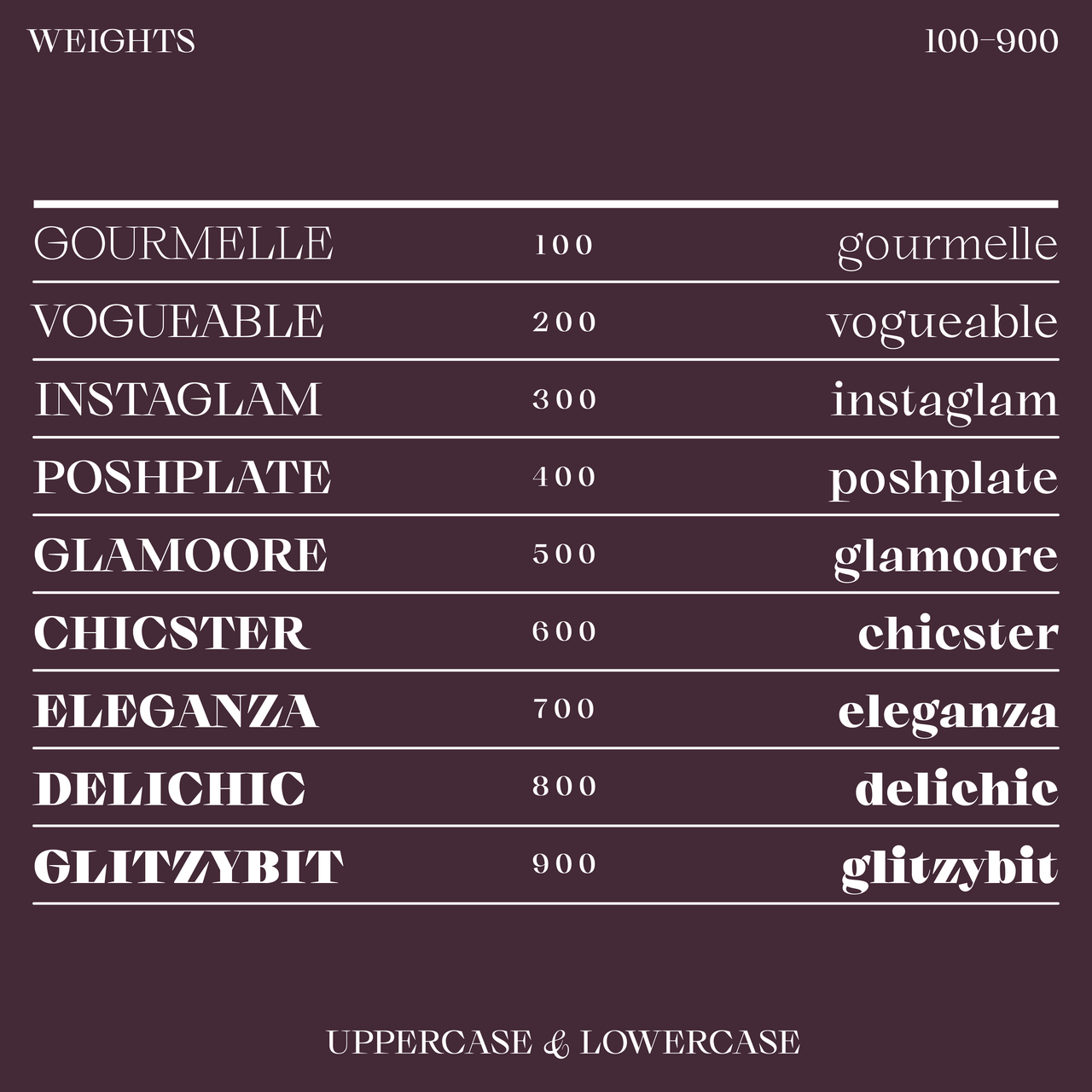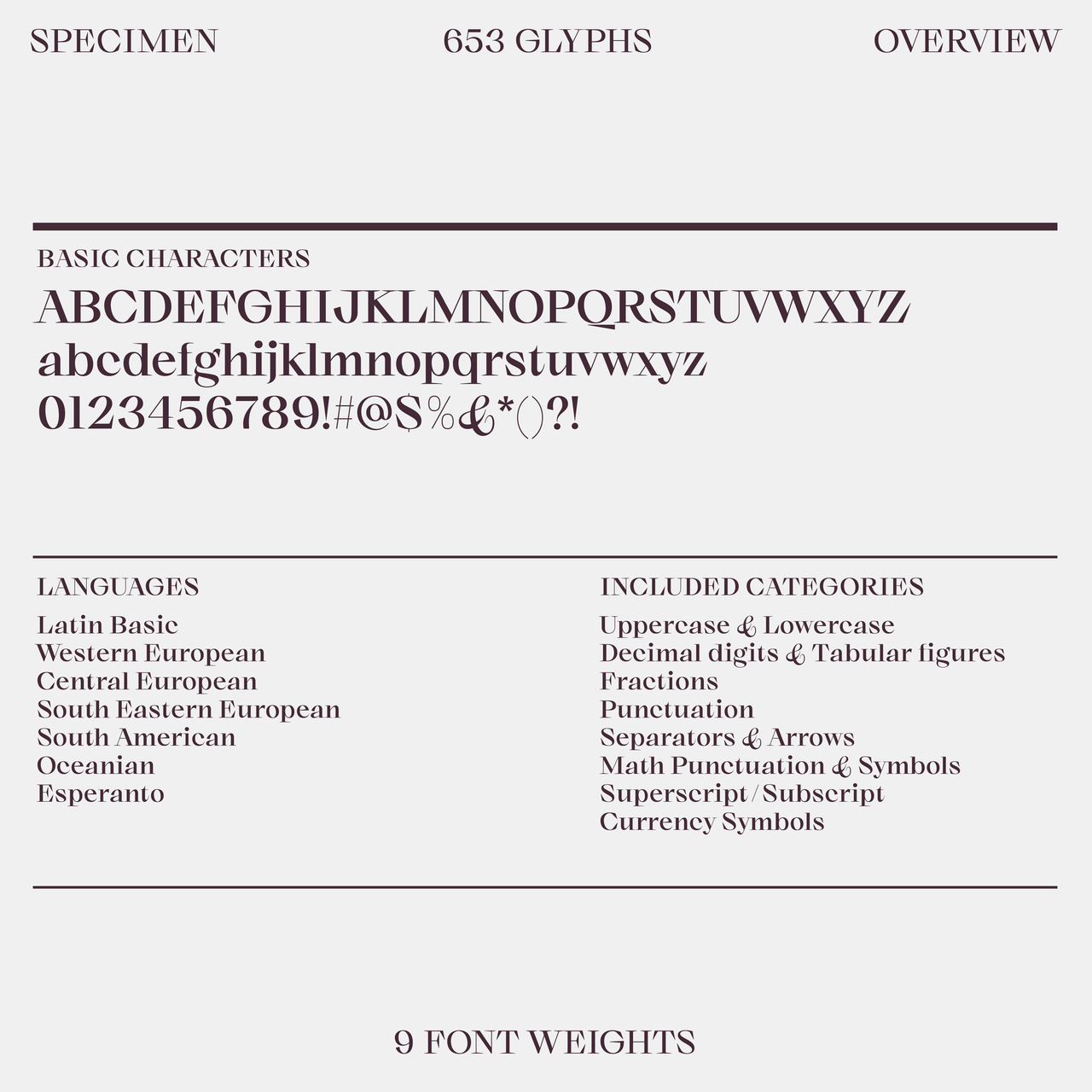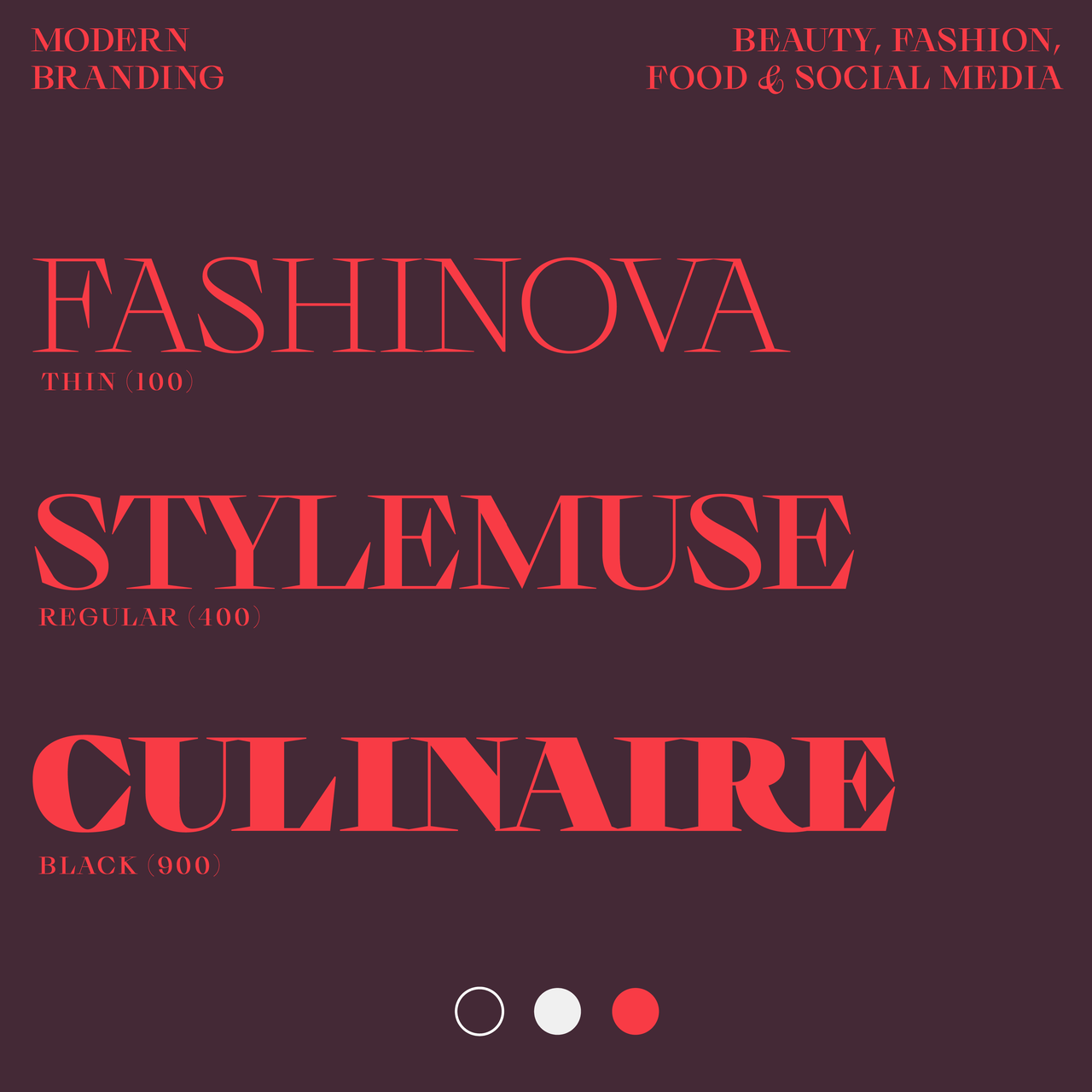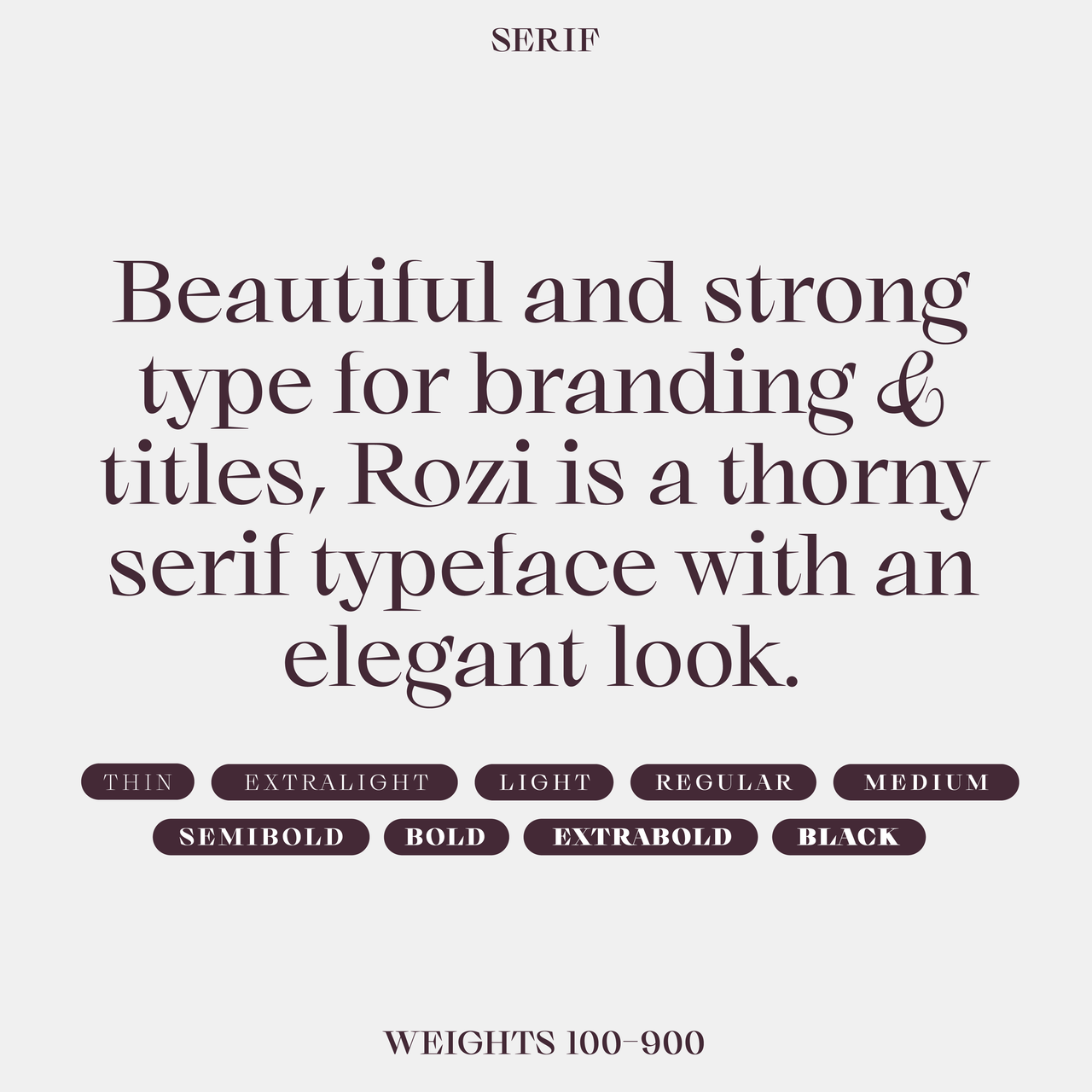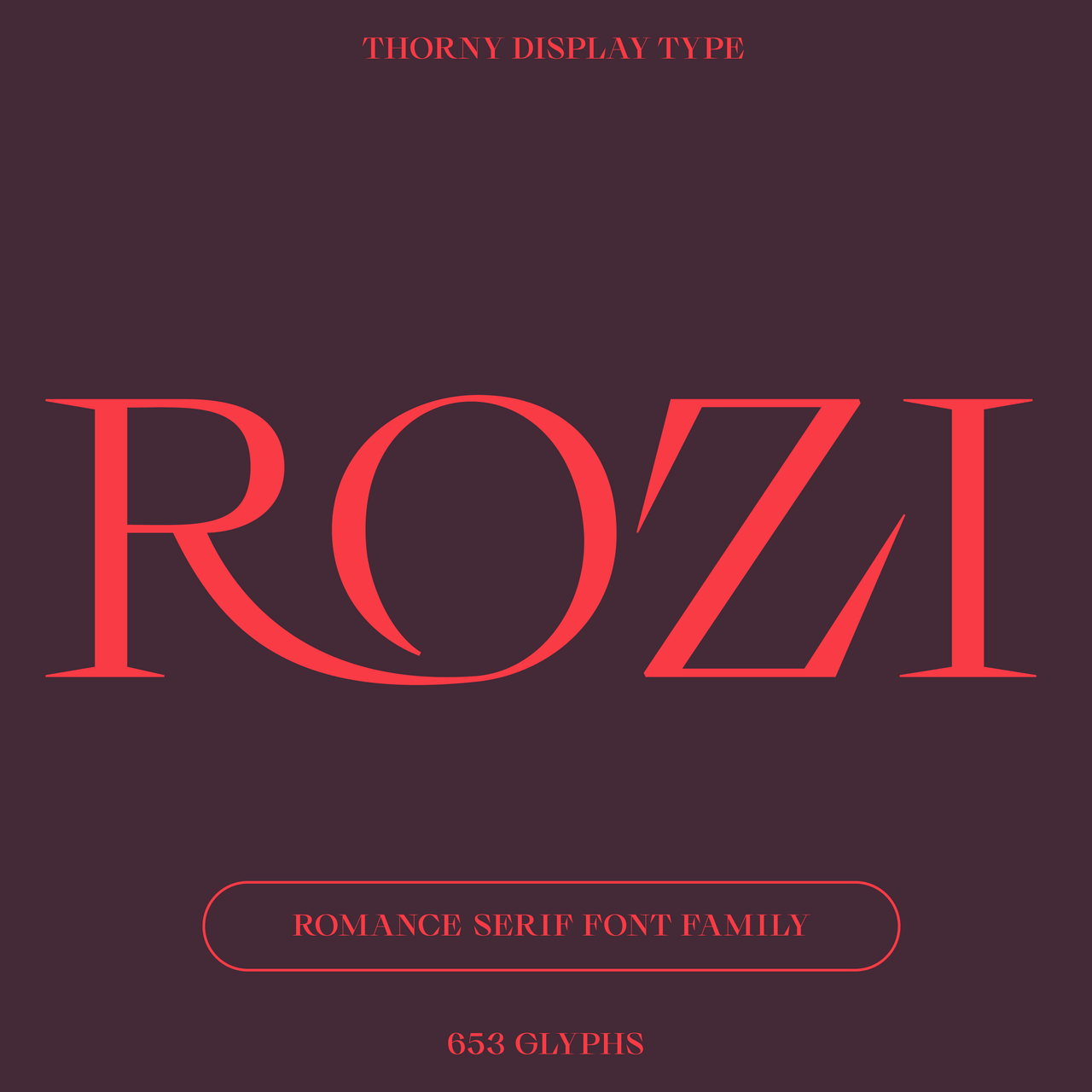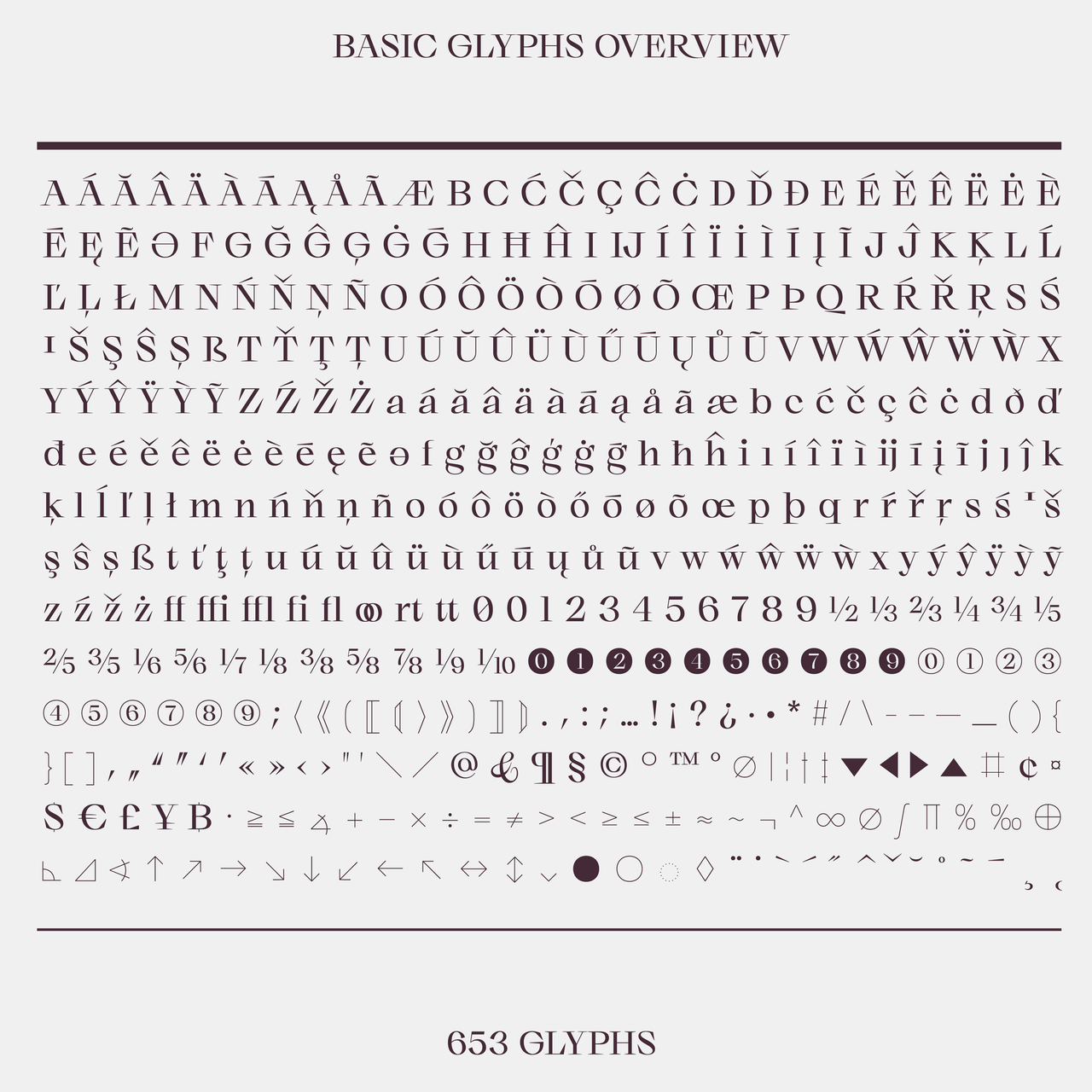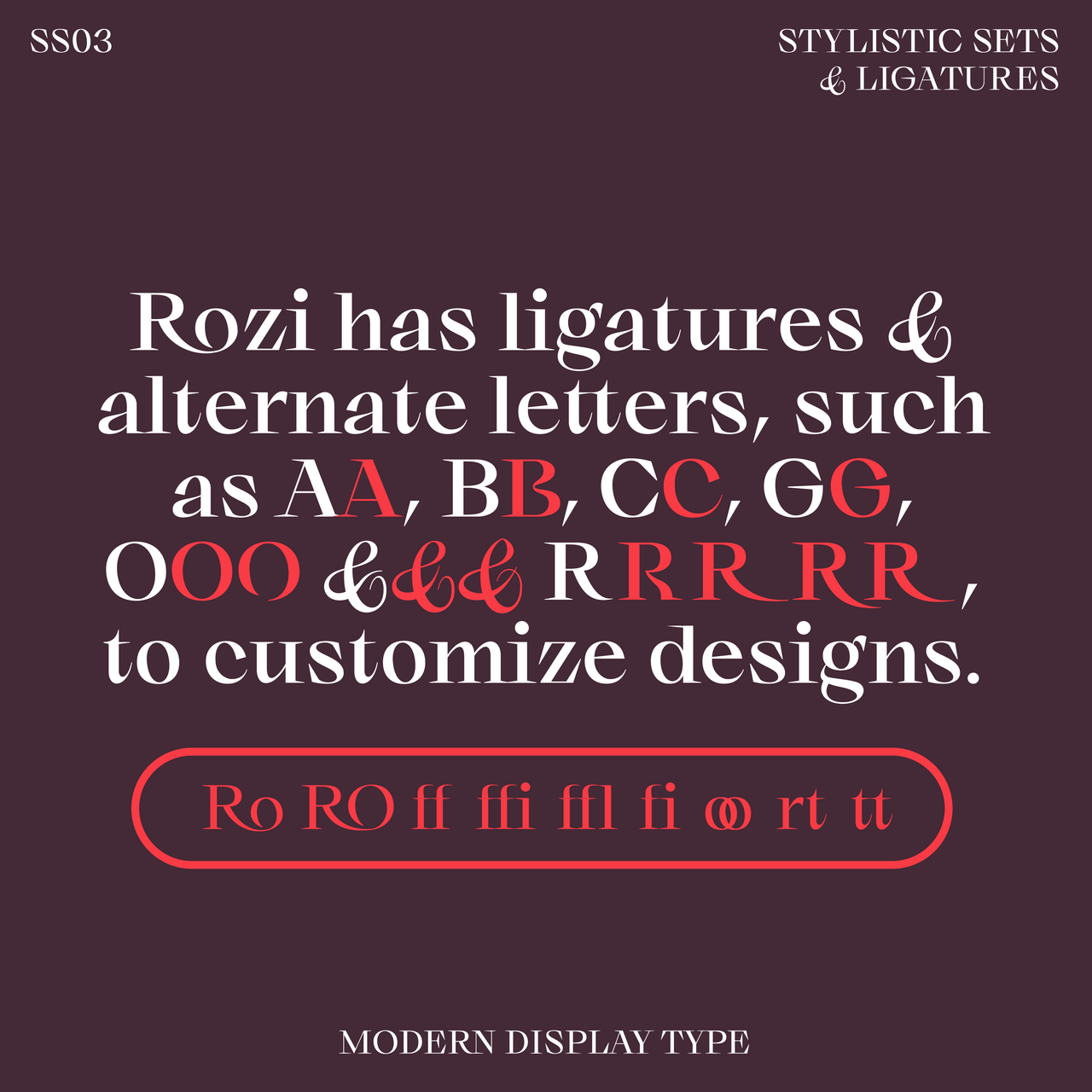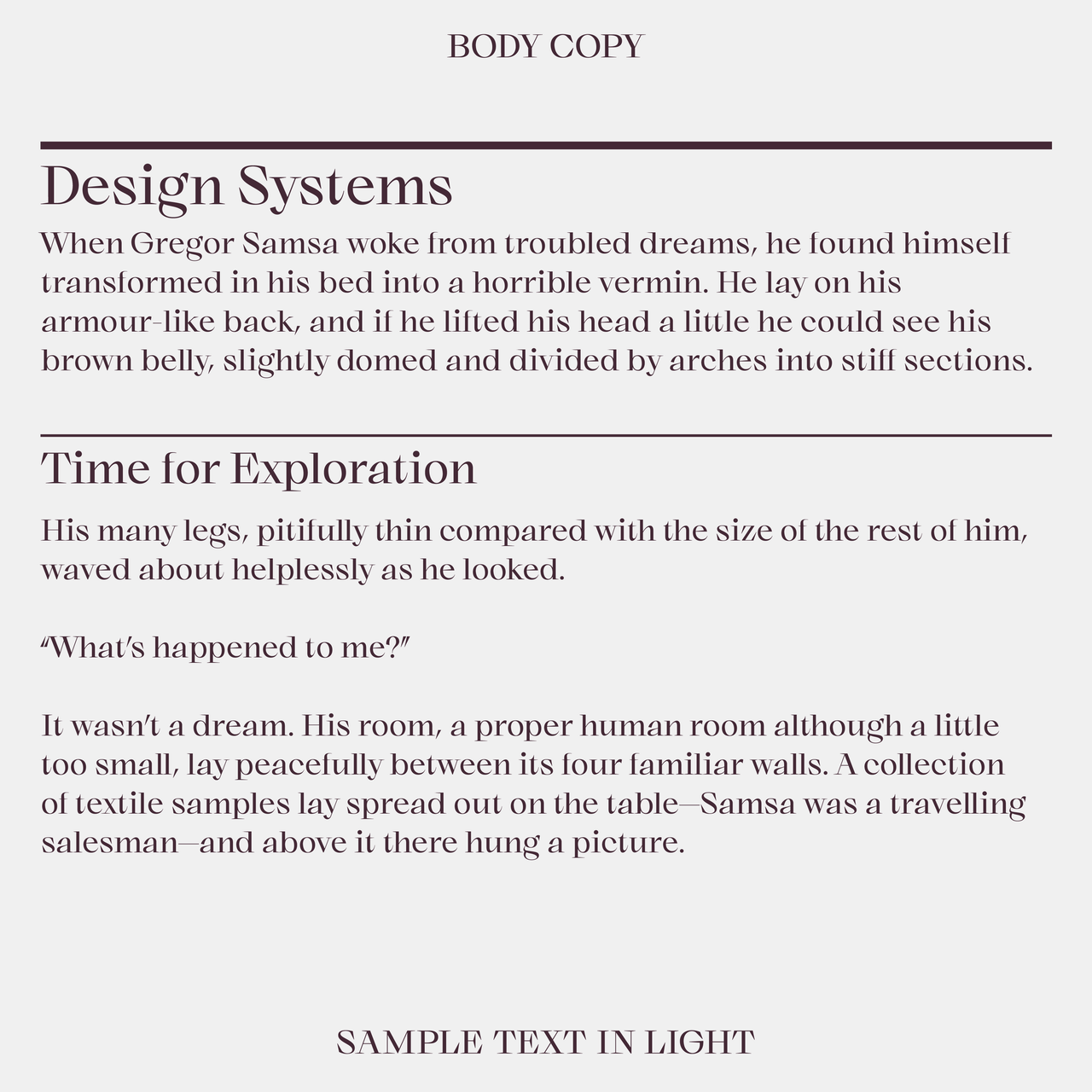
Rozi—Strong, unique serif font for elegance
Beautiful and strong type for branding & titles, Rozi is a thorny, sharp serif font with an modernized nostalgic and elegant look in light and bold styles. Great for Christmas marketing this season. Rozi has ligatures & alternate letters, such as 2 or more options for glyphs A, B, C, G, O & R, to customize designs. Available in 9 font weights.